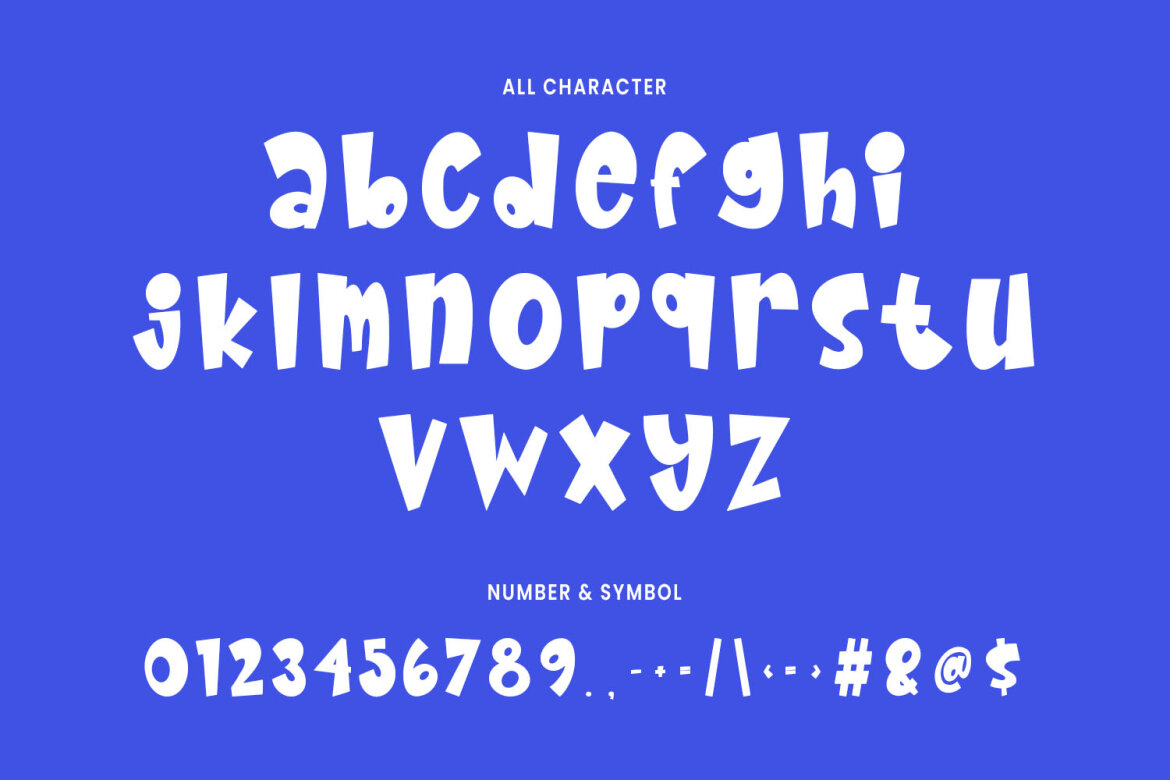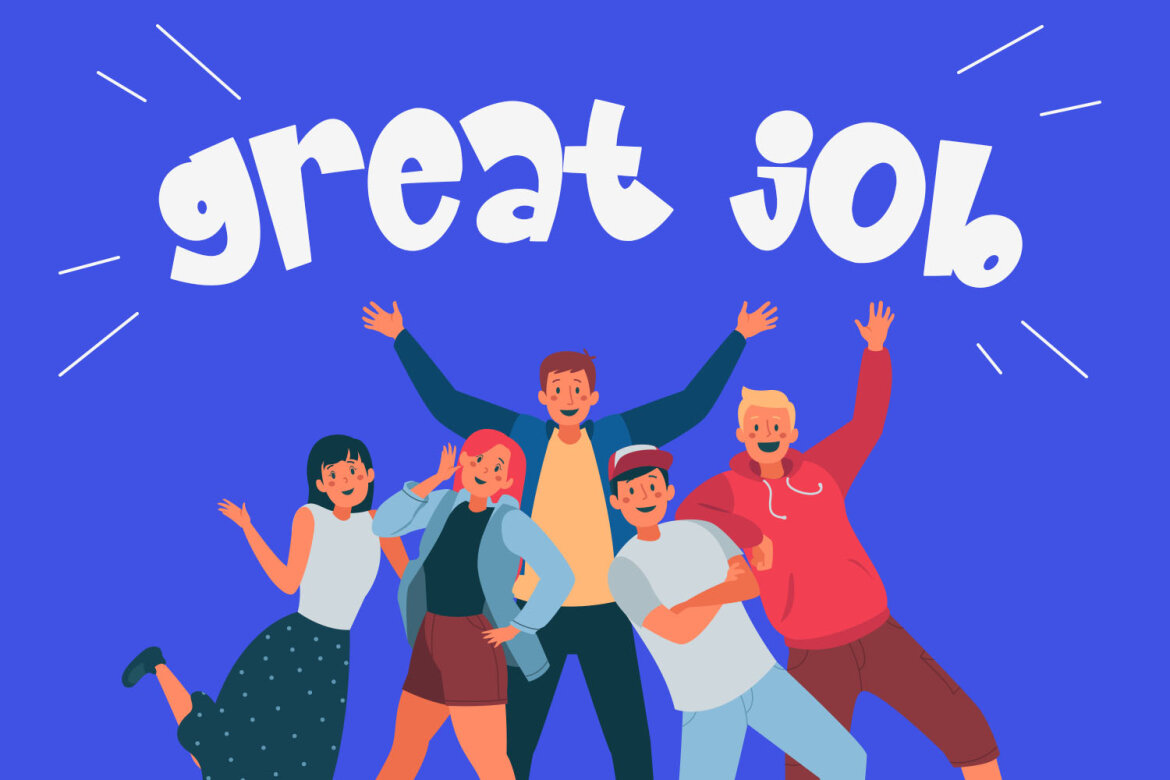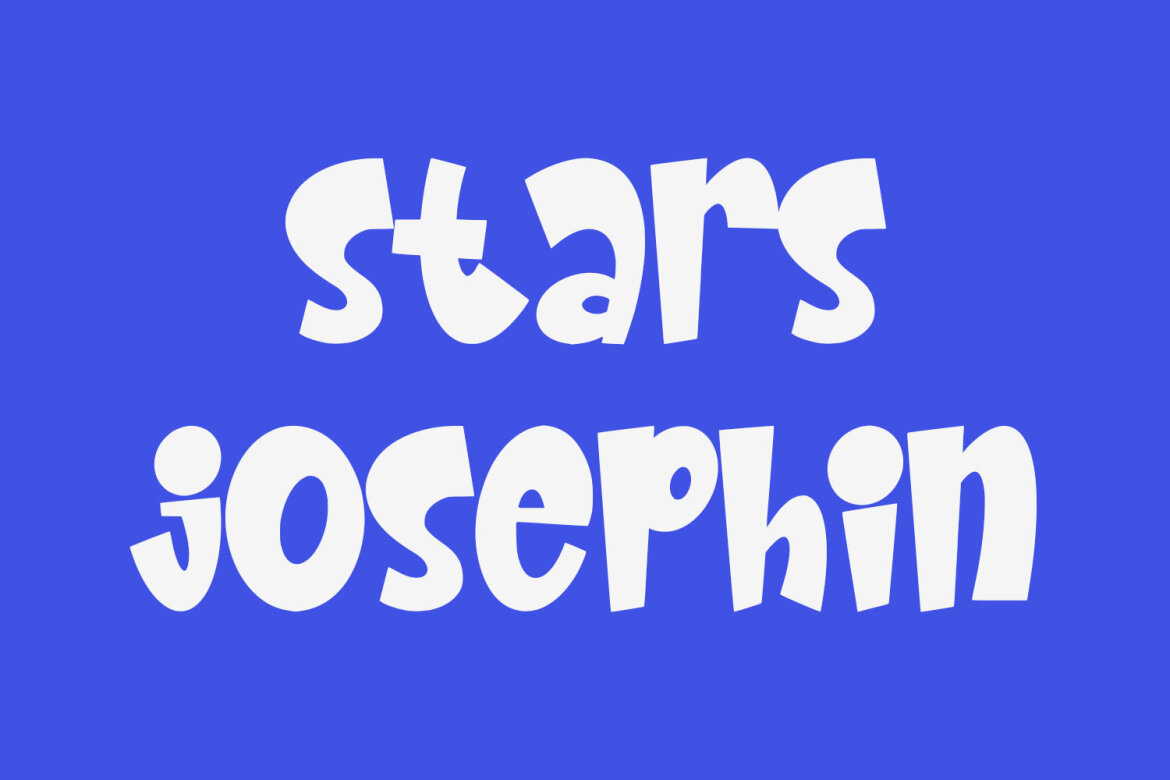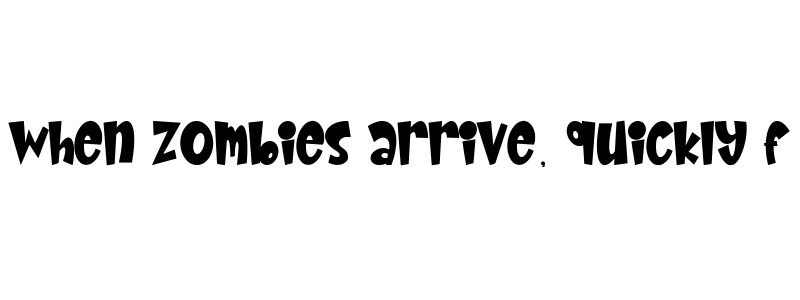
Dippie Cheerful FREE Font
Dippie cheerful display font. Heavy stroke, fun character with a bit of ligatures. To give you an extra creative work. Dippie cheerful display font support multilingual more than 100+ language. This font is good for logo design, Social media, Movie Titles, Books Titles, a short text even a long text letter and good for your secondary text font with script or serif. Make a stunning work with Dippie cheerful display font.